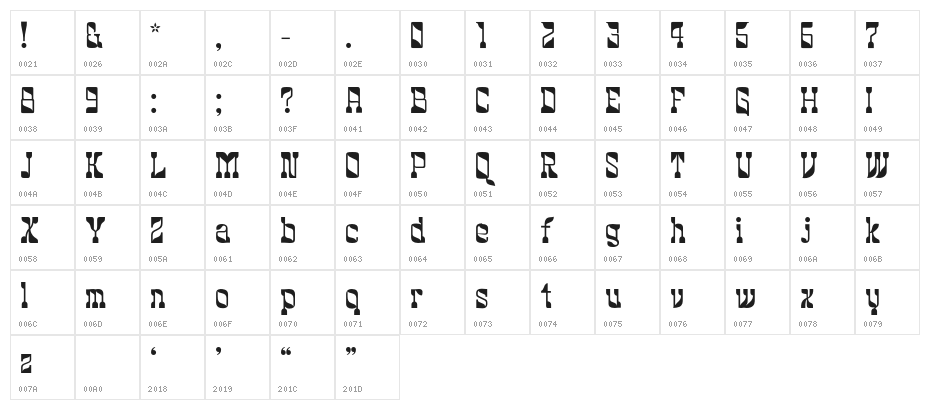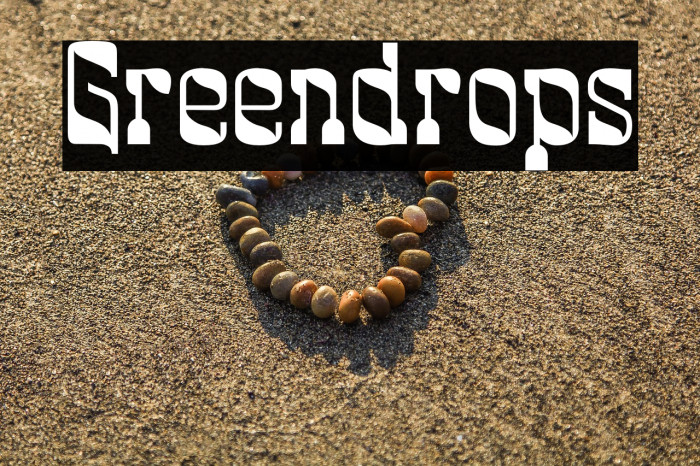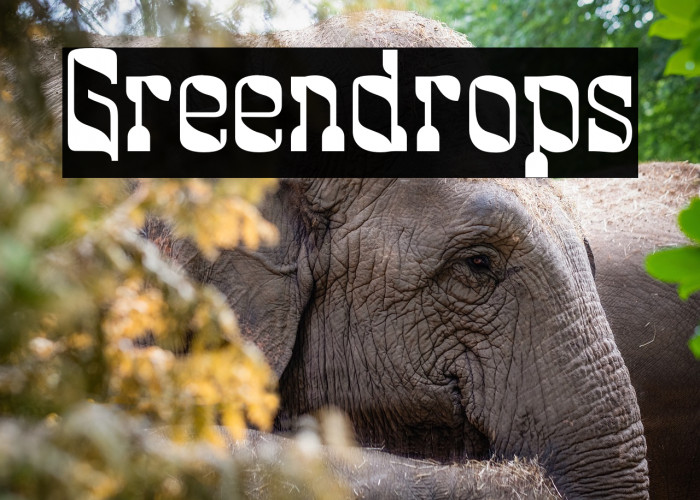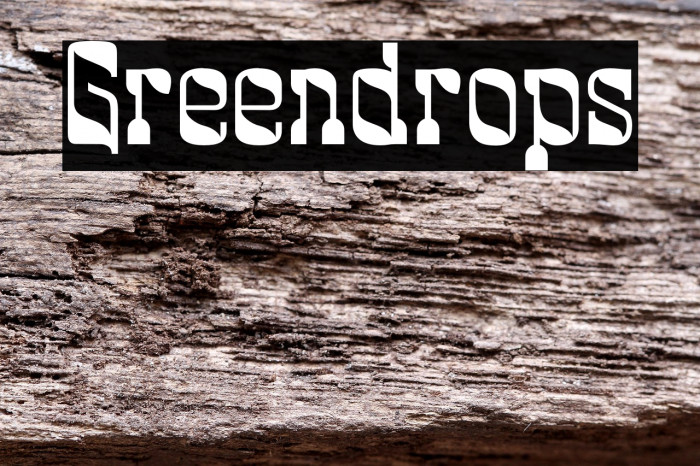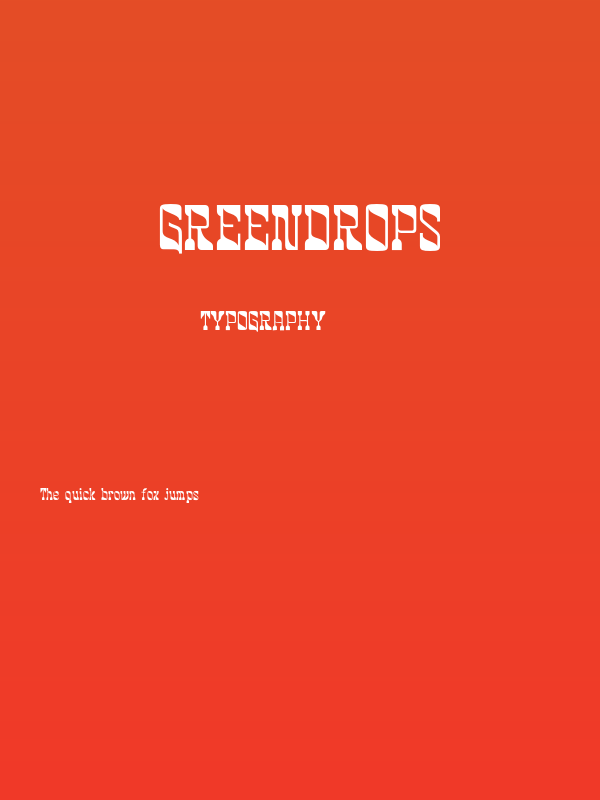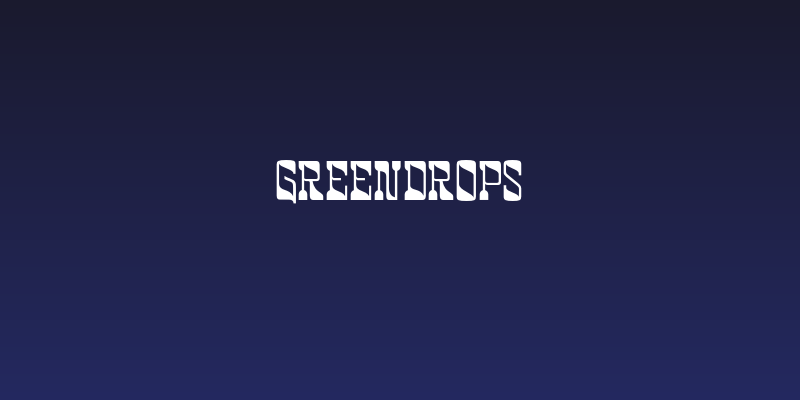
Greendrops Font
Greendrops Description
This font features a bold and striking design with a unique blend of geometric and organic elements. The characters are constructed with thick, block-like structures that are interrupted by smooth, flowing curves, creating a dynamic contrast. The uppercase letters are particularly bold, with a strong presence that commands attention. The lowercase letters maintain the same boldness but with slightly more fluidity in their design. Numbers and special characters follow the same stylistic approach, ensuring consistency across all elements. This font's distinctive style makes it ideal for projects that require a strong visual impact.
| Proposed Projects | Ideal for branding, poster design, and any project needing a bold, attention-grabbing typeface. |